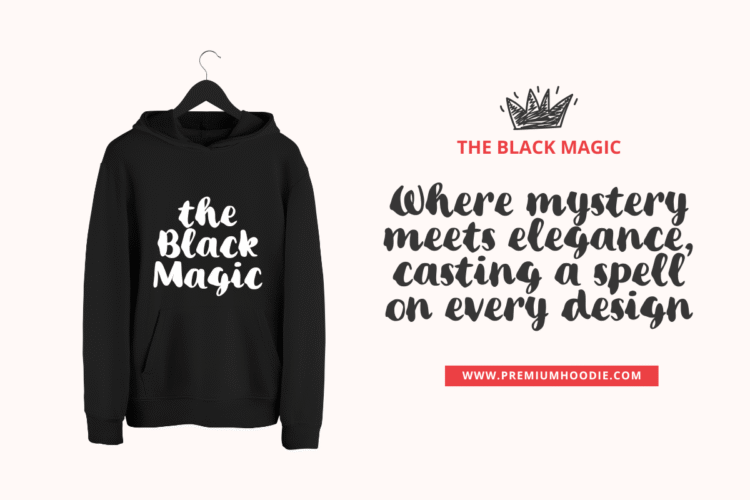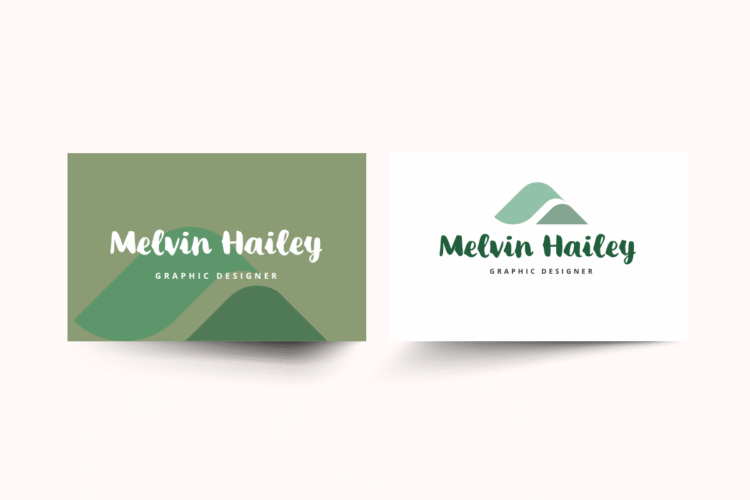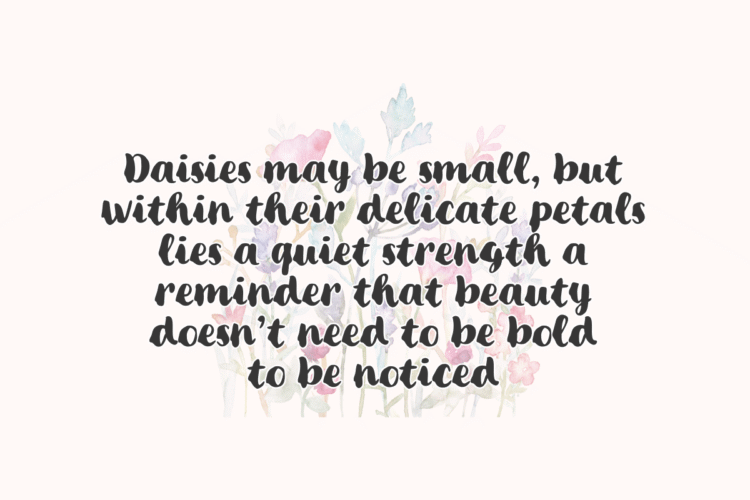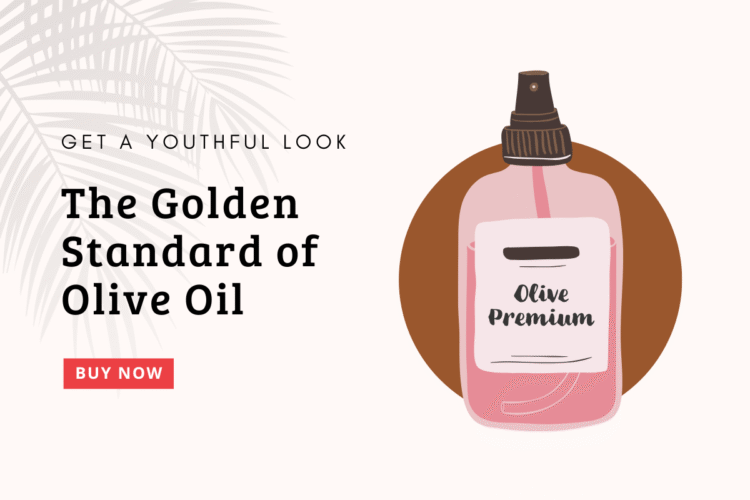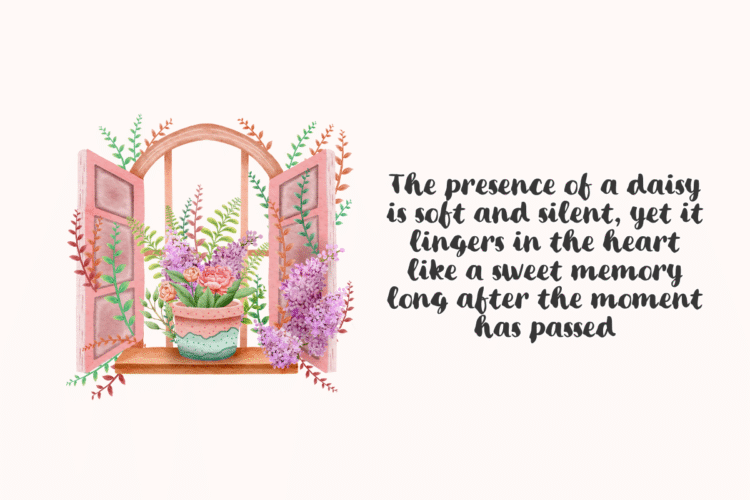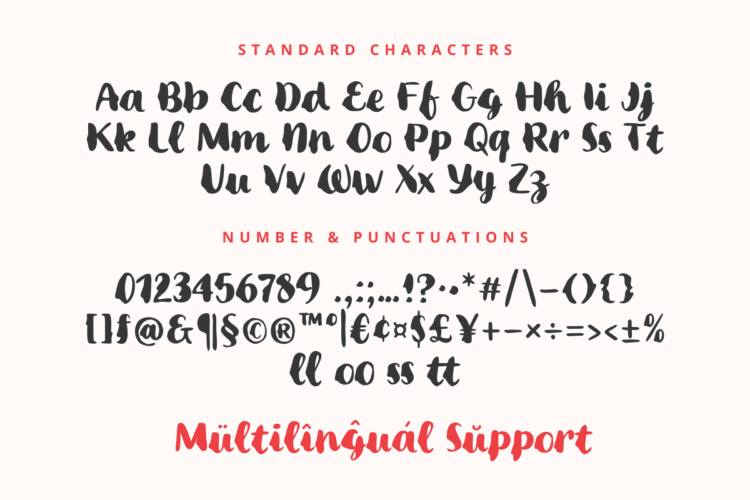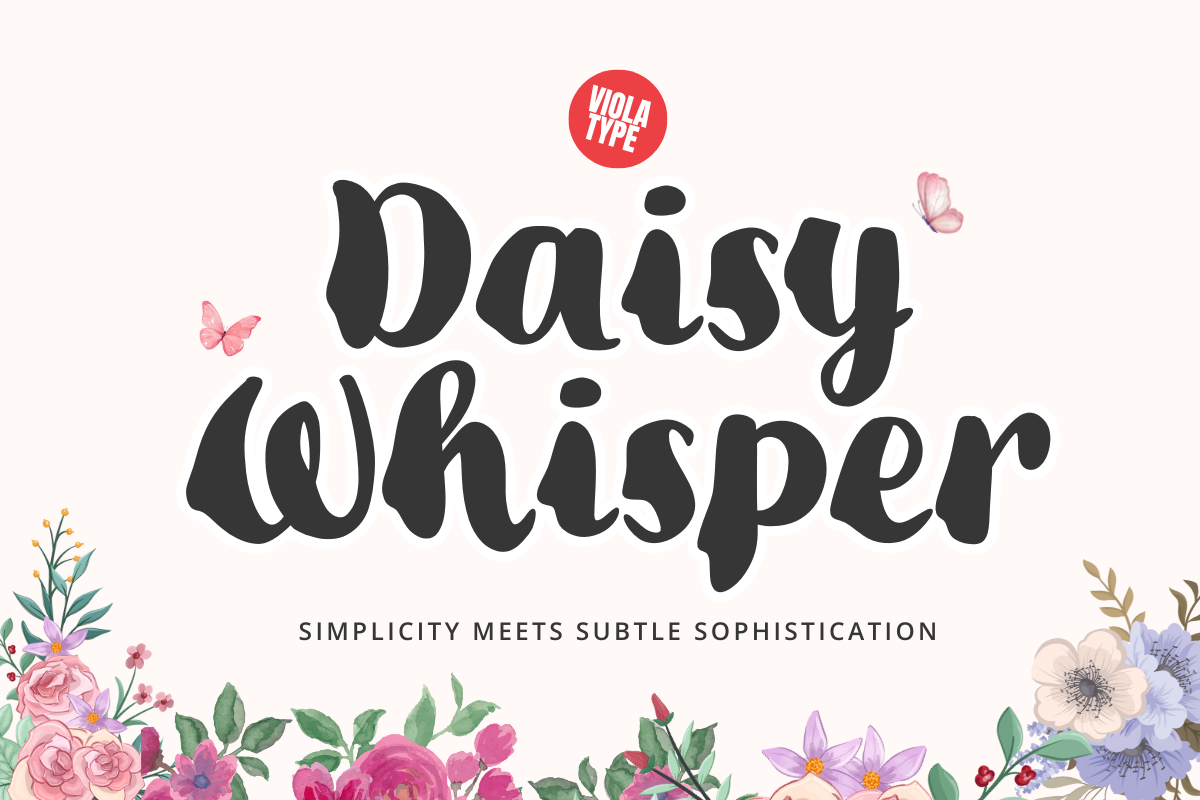
Bring personality and playfulness to your design with [Your Font Name], a bold handwritten font bursting with charm. Its thick, brush-style strokes offer a natural, spontaneous feel, making it perfect for branding, packaging, social media posts, and editorial layouts. Each letter is crafted to evoke the warmth of hand lettering while maintaining clarity and balance across both upper and lowercase characters.
This font includes:
- Full uppercase and lowercase letters
- Numbers and a wide range of punctuation
- Ligatures for a more fluid, handwritten look (like “ll”, “oo”, “ss”, “tt”)
- Multilingual support to reach a global audience
Whether you’re designing a fun logo, crafting a heartfelt quote, or adding flair to a product label, [Your Font Name] brings a personal and expressive touch to every project.
Let your words dance with character – try Daisy Whisper today!